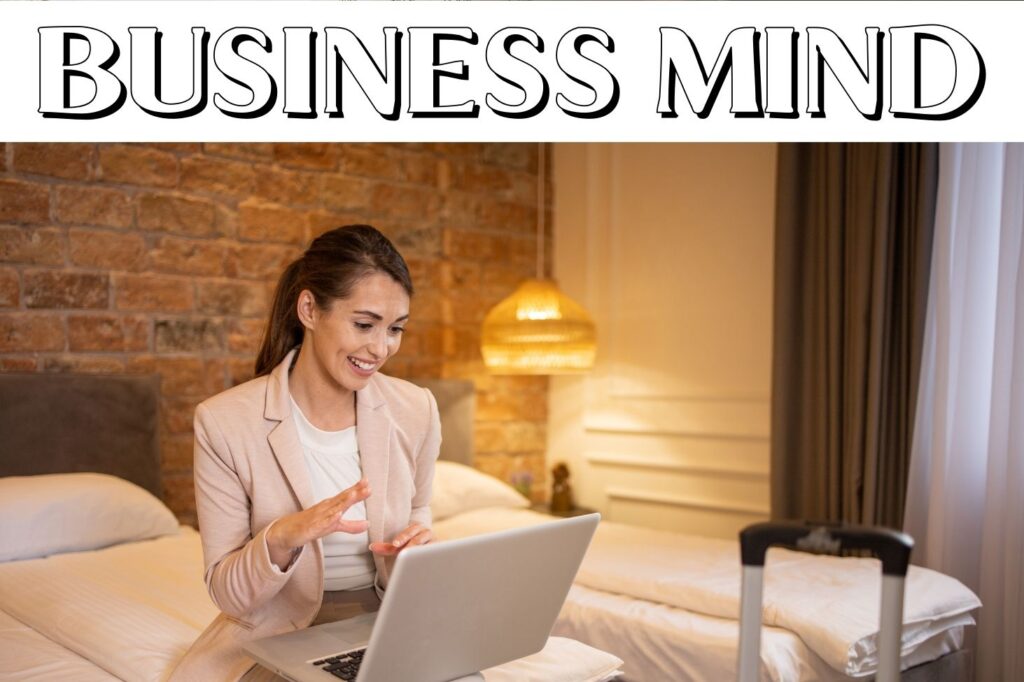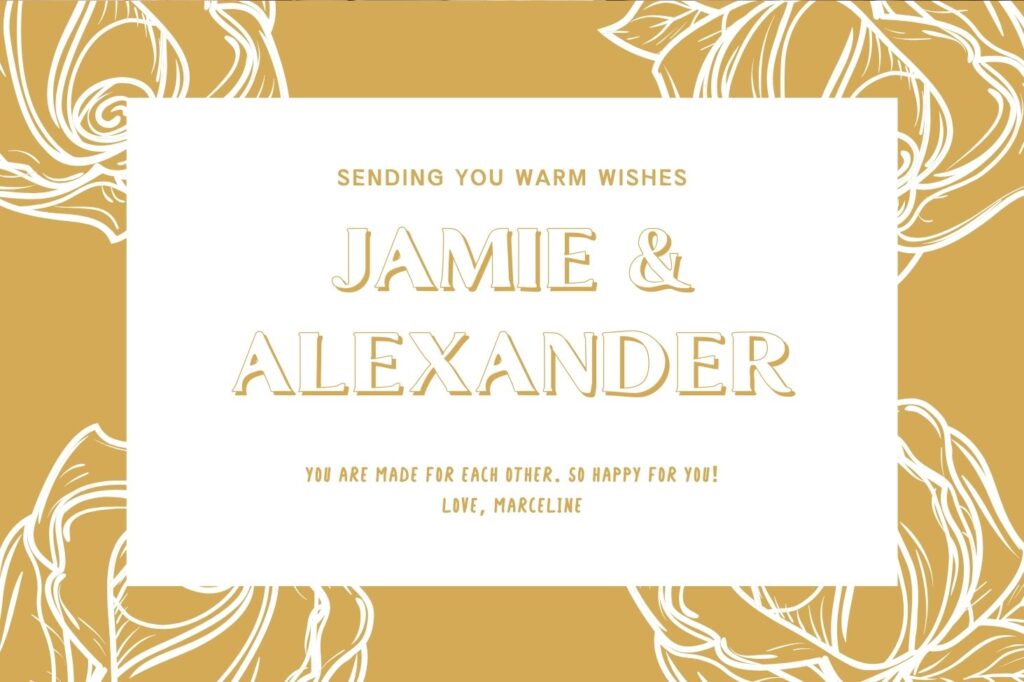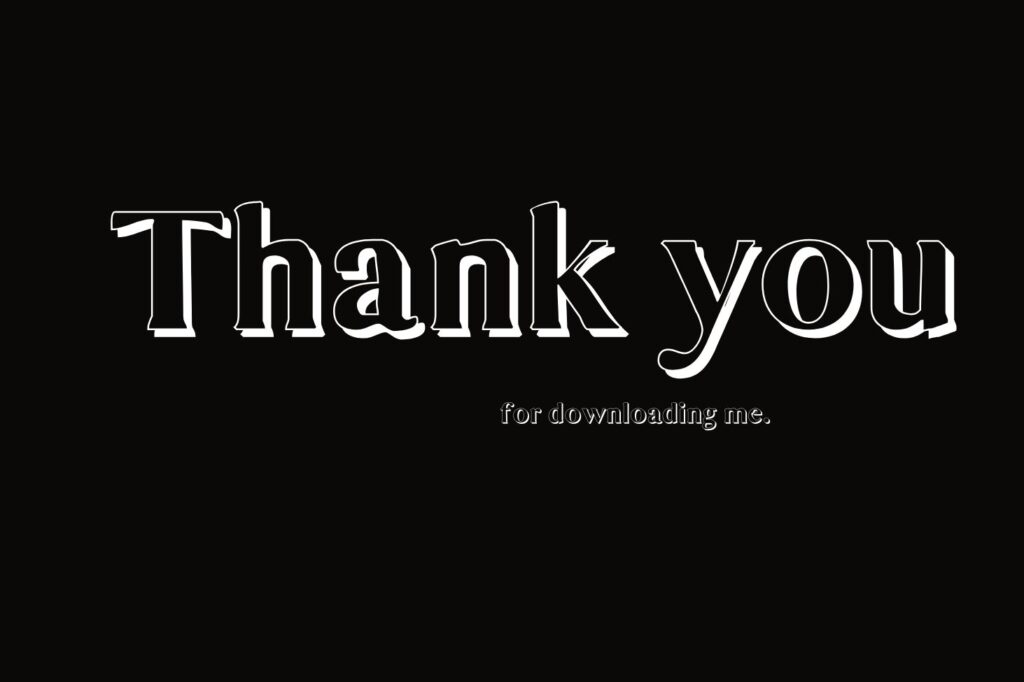
Introducing BeePop Luxury Shadow Font, a bold and elegant typeface that blends vintage charm with a modern twist. Its luxury shadow effect adds depth and character, making it perfect for classy designs, branding, and creative headlines. Whether you’re working on a travel blog, business logo, or wedding invitation, this font will bring a sophisticated flair to your project.
BeePop stands out with its well-defined edges, stylish shadows, and international character support. It’s designed to be both functional and artistic, giving you endless possibilities for creating stunning visuals. From business presentations to lifestyle graphics, BeePop helps your message shine with style.
Make Your Designs Look Premium
With BeePop Luxury Shadow Font, you don’t need fancy tools or complex designs to create something truly eye-catching. This elegant font brings a high-end feel to your work effortlessly. Whether you’re designing for personal projects, professional branding, or small business needs, BeePop makes everything look sleek and stylish!